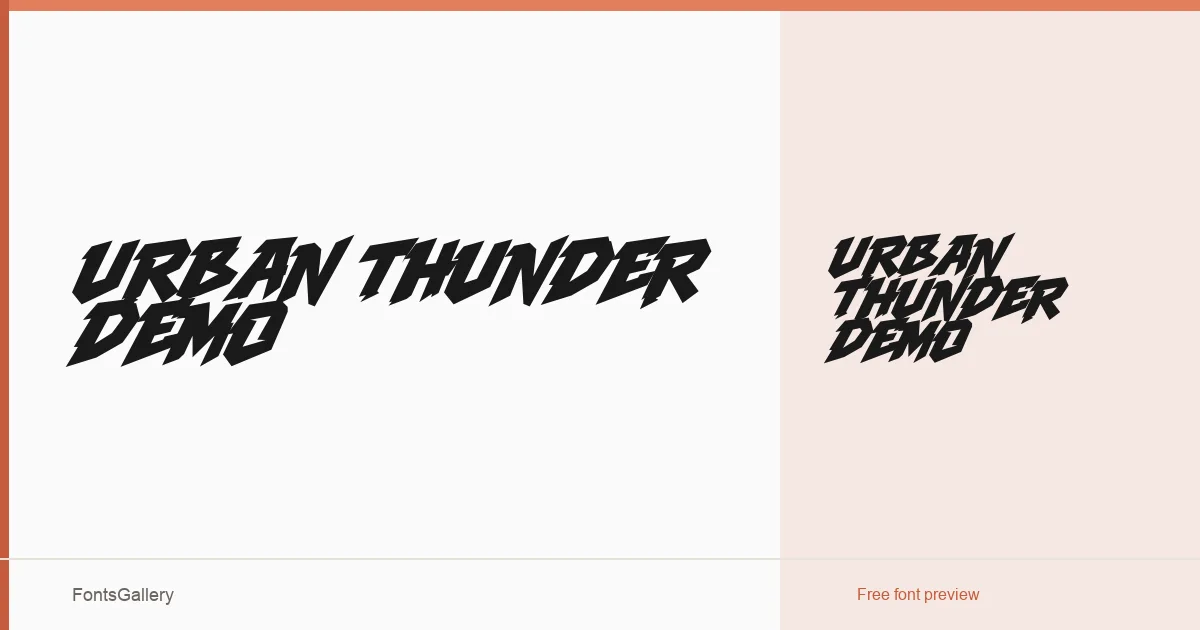
About Urban Thunder Demo Font
There is a raw, distressed energy to this display face from Icep Anwar Fadhil of Figuree Studio — the kind of weight that lands hard on a page without apologizing for it. Built with a grunge sensibility that pulls from vintage lettering traditions while keeping its proportions firmly modern, the letterforms carry deliberate roughness in their edges and an assertive mass in their strokes.
This is a bold, grunge-inflected display family, available here as a single Regular cut in OTF format. The character set covers Latin. The mood sits at the intersection of vintage muscle and contemporary attitude — the kind of type that reads instantly at large sizes and holds its presence in headline or logotype contexts where something less forceful would disappear.
It earns its place in branding work, poster layouts, logo treatments, and T-shirt design — anywhere a headline needs to feel earned rather than polite. For pairing, the neutrality of Helvetica or Alexandria provides a clean contrast at smaller sizes, while Aresink, Bizantheum, and Audex each offer complementary display energy for more layered, expressive compositions.